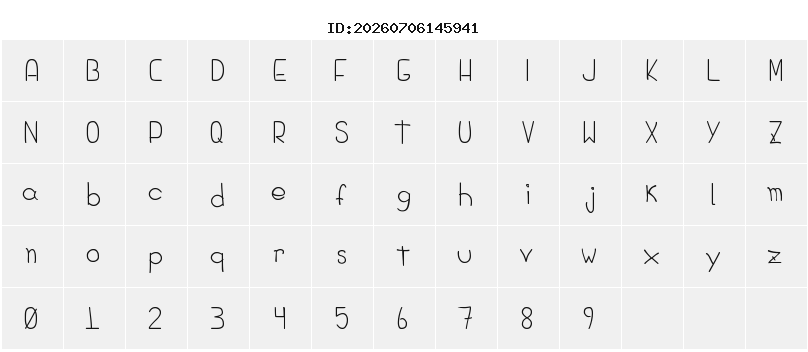
Diego Hands Preview
• Font Name: Diego Hands
• Full Font Name: Diego Hands
• Version: Version 1.00 October 11, 2014, initial release
About Diego Hands.ttf
Diego Hands.ttf is a modern, elegant sans-serif font designed for ultimate readability and visual harmony. Perfect for branding, headlines, web design, and print materials.